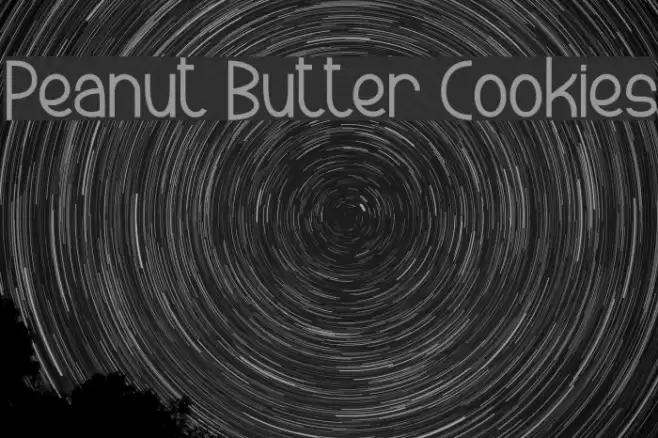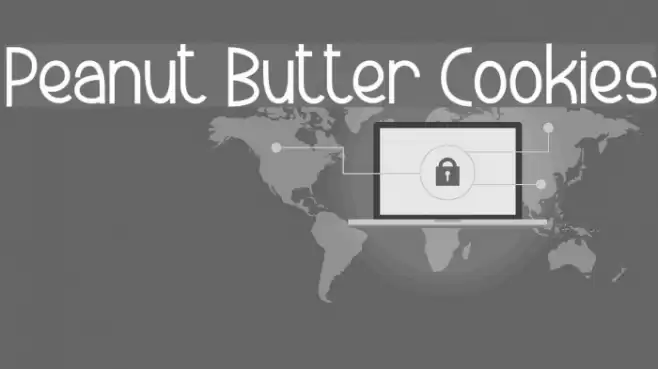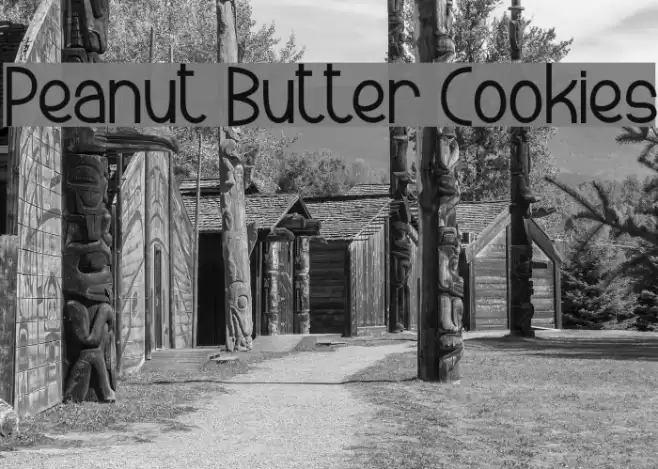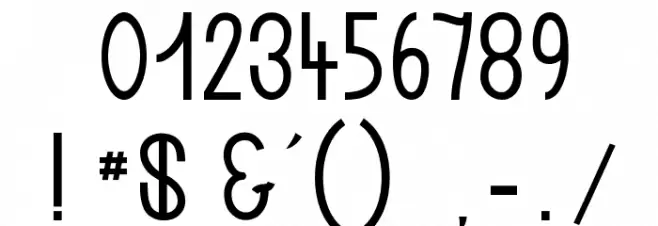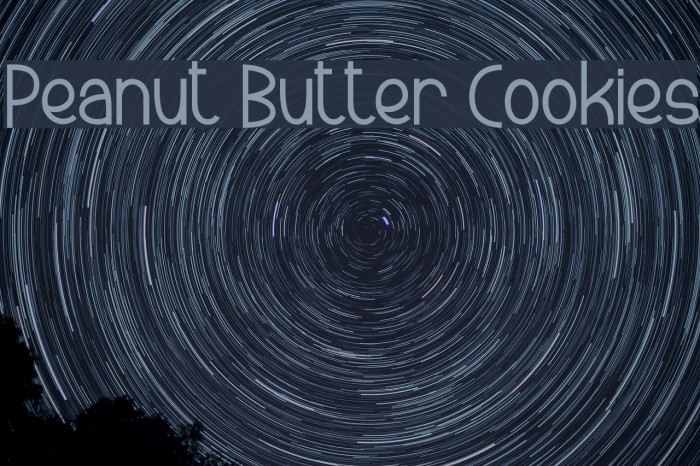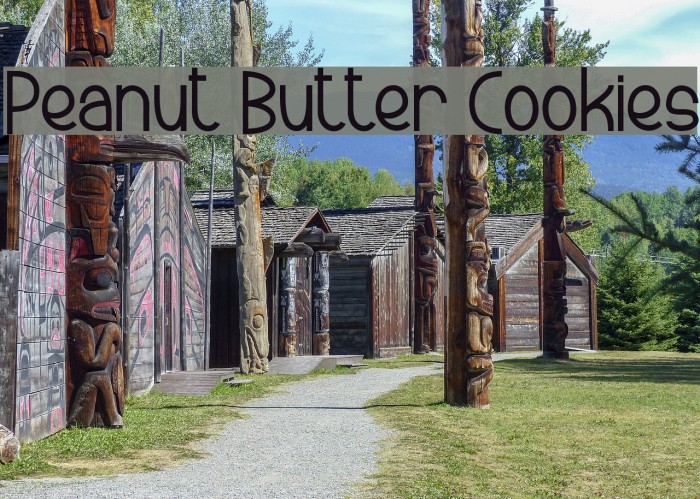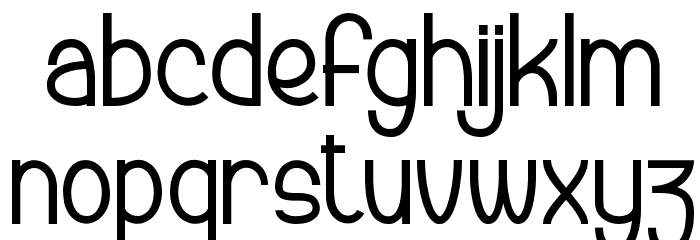
Peanut Butter Cookies Font
Peanut Butter Cookies Description
This font features a clean and modern sans-serif style with a geometric structure. The characters are evenly spaced with a consistent stroke width, giving it a balanced and harmonious appearance. The uppercase letters are tall and slightly narrow, while the lowercase letters maintain a similar width, providing a cohesive look. The numerals are clear and easy to read, matching the overall style of the alphabet. Special characters are well-integrated, ensuring versatility in various design contexts. The font's simplicity and clarity make it suitable for a wide range of applications, from digital interfaces to print media.
A modern, geometric sans-serif font with consistent stroke width and balanced spacing from Uncategorized fonts.
- Proposed Projects: Ideal for branding, web design, user interfaces, and editorial layouts.